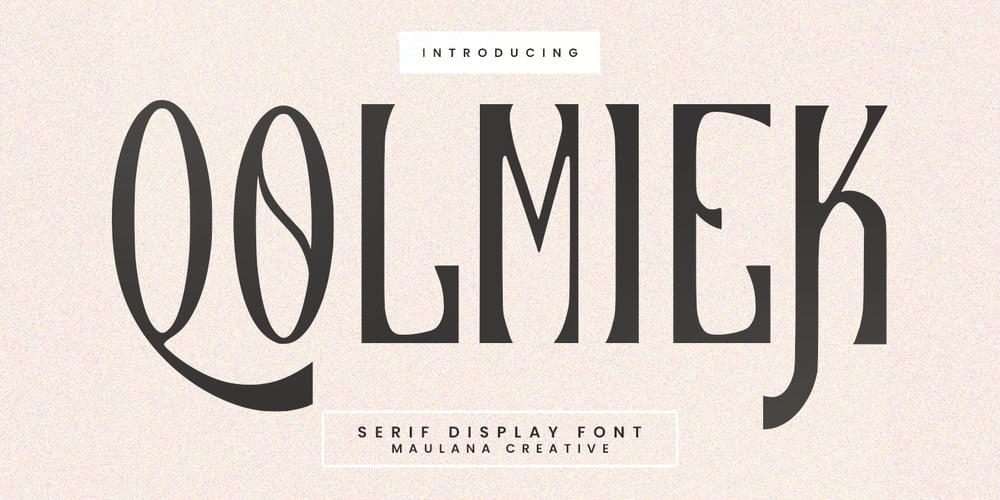
MC Qolmiek
MC Qolmiek font
MC Qolmiek Font Family was designed by Gilang Maulana and published by Maulana Creative. MC Qolmiek contains 1 styles and family package options. Qolmiek serif display typeface. Heavy stroke, fun character with a bit of ligatures. To give you an extra creative work. Qolmiek serif display typeface support multilingual more than 100+ language. This font is good for logo design, Social media, Movie Titles, Books Titles, a short text even a long text letter and good for your secondary text font with script or serif. Make a stunning work with Qolmiek serif display typeface. Cheers, Maulana Creative